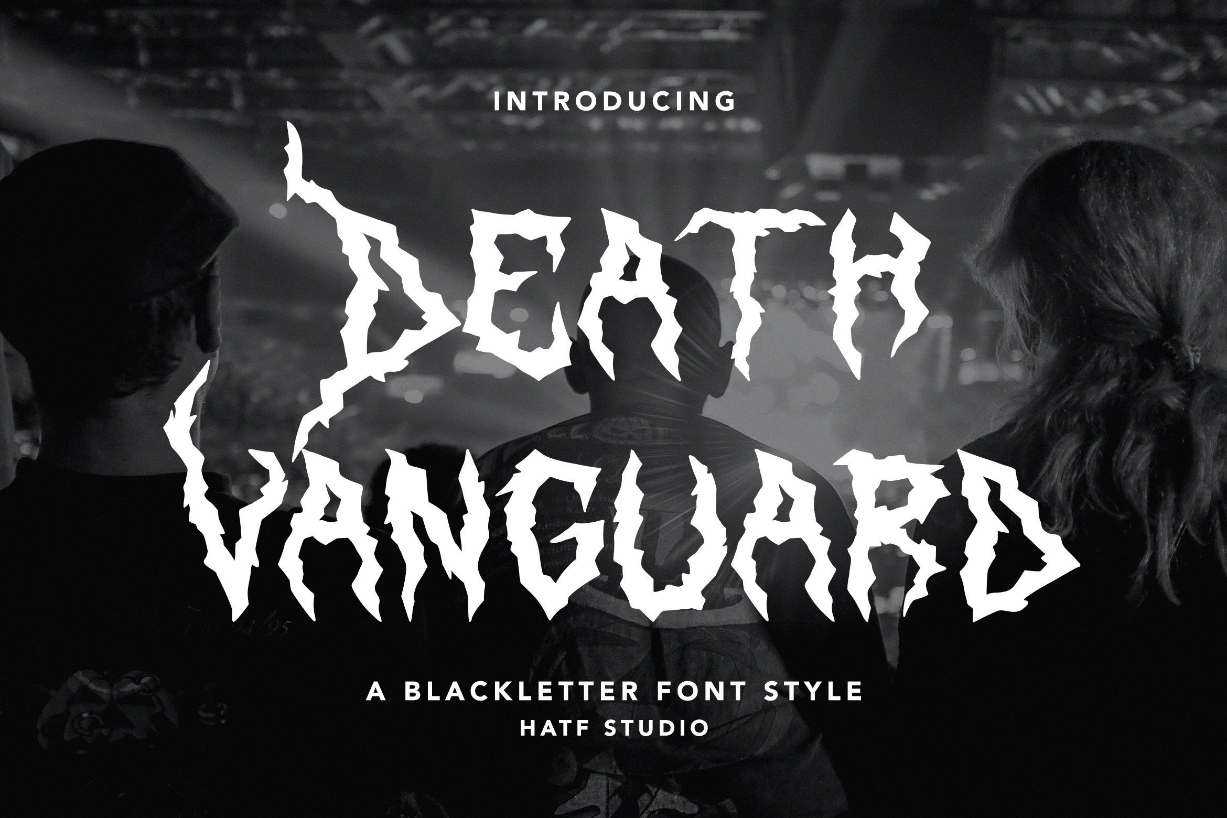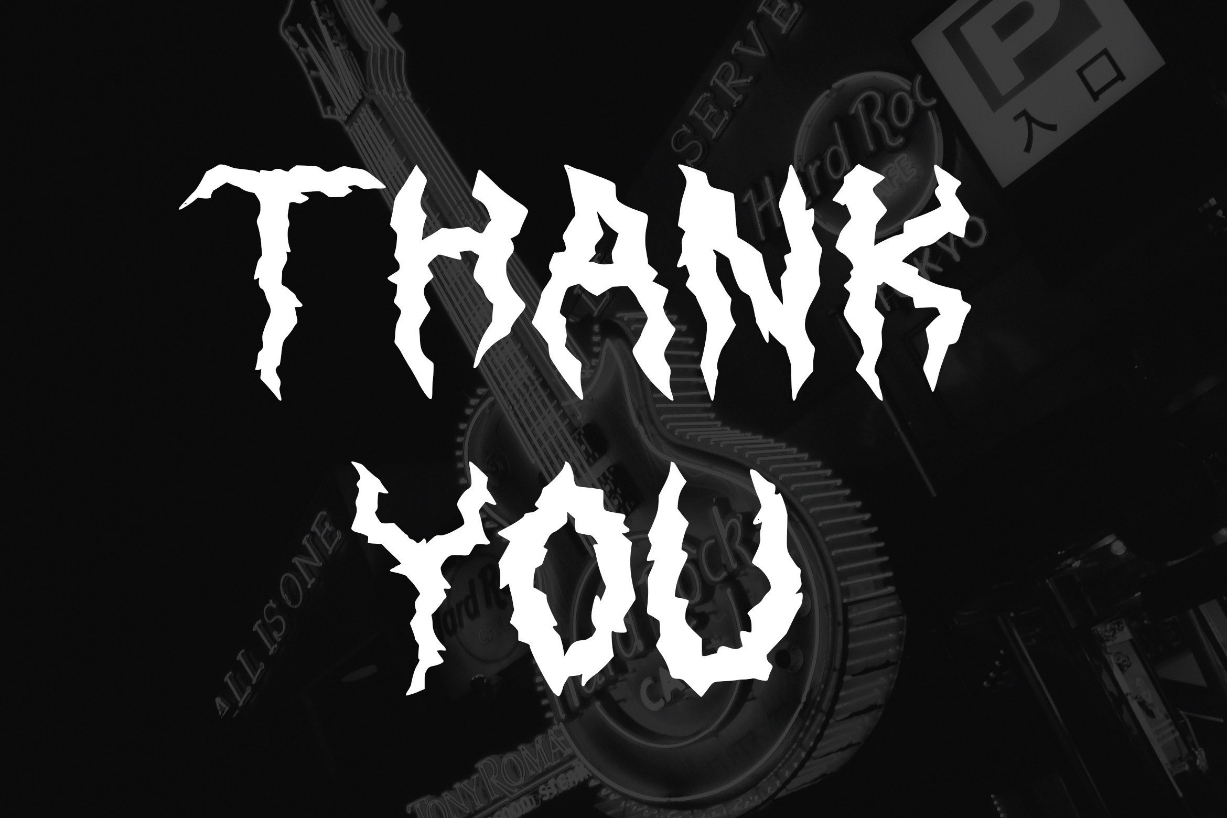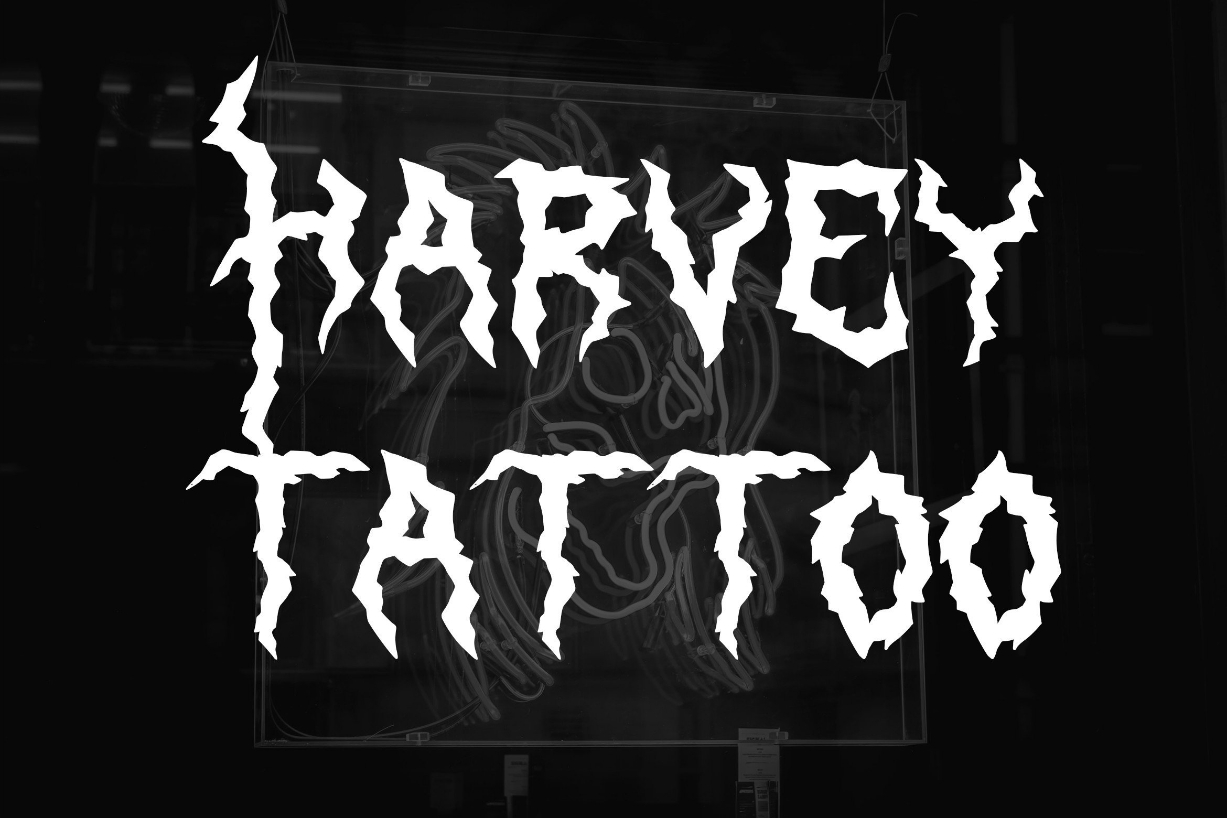
About Death Vanguard Font
Death Vanguard – A Blackletter Font inspired by gothic and horror styles. Because of its unique shape, this typeface is perfect for any project you have coming up!
Death Vanguard is perfect for logotypes, posters, badges, book covers, t-shirt designs, packaging, and more.